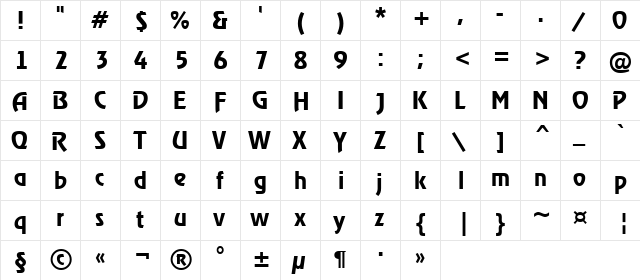
a_RewinderDemi Regular
Design Context for a_RewinderDemi Typeface
a_RewinderDemi is a composed and adaptable typeface that performs quietly and consistently across a wide range of design contexts.